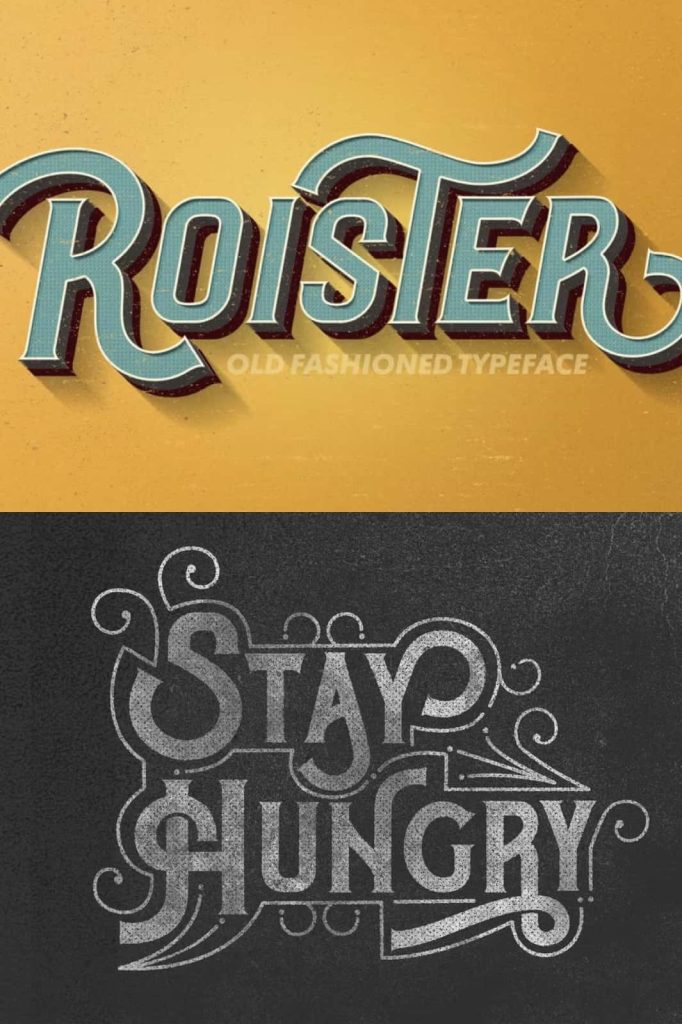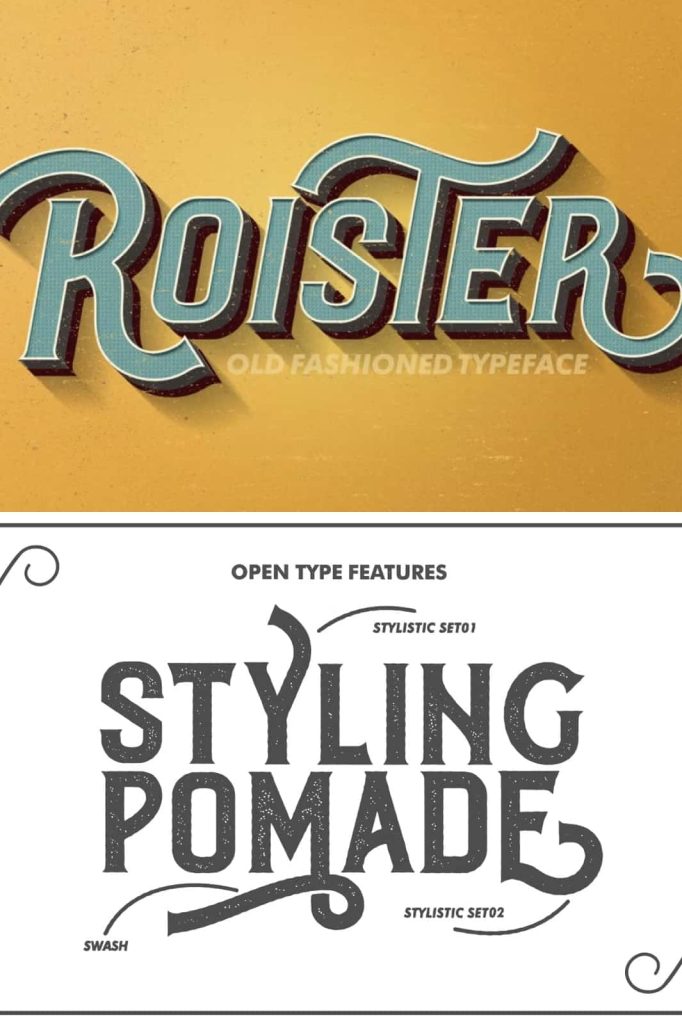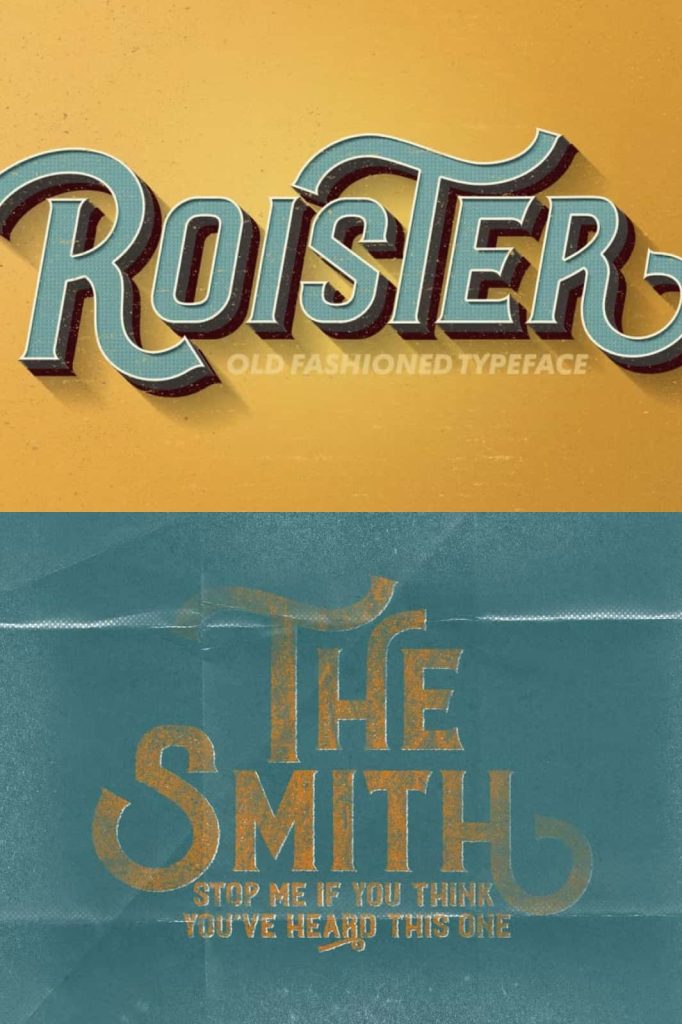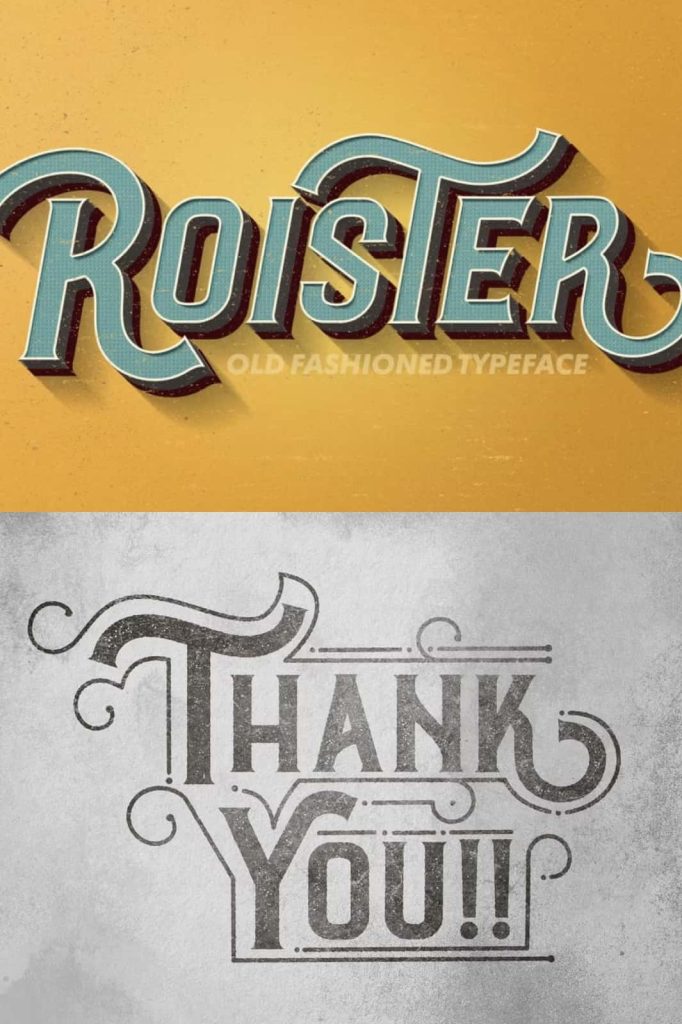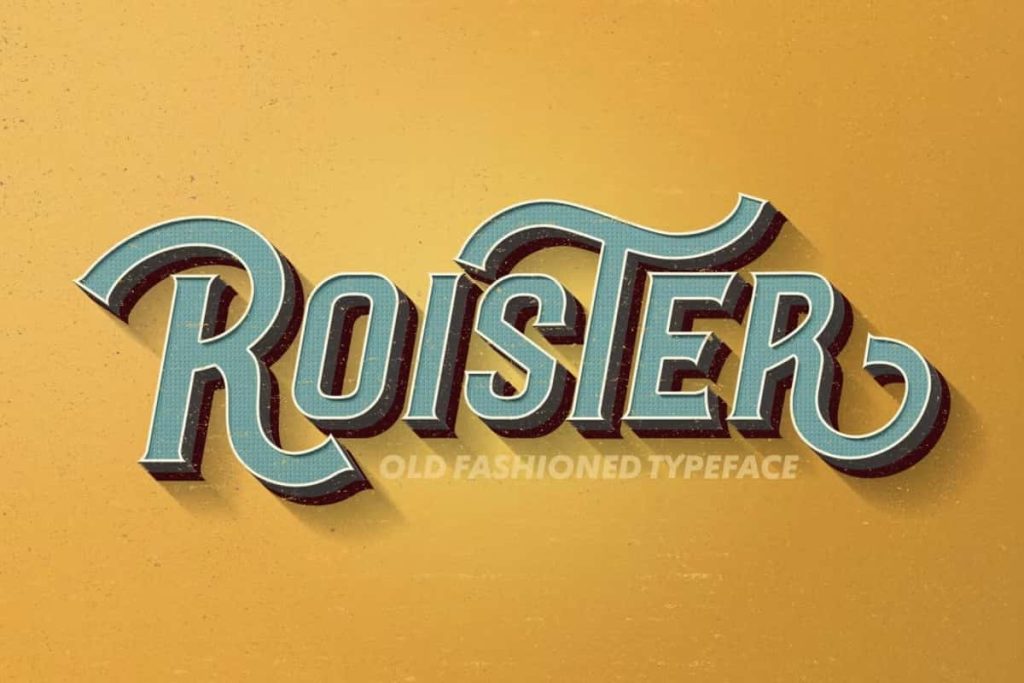
Roister TypefaceleastedJanuary 1, 2025Fonts Roister Typeface was made by combination from classic and modern style, trying to give a vintage feel with this font. Download